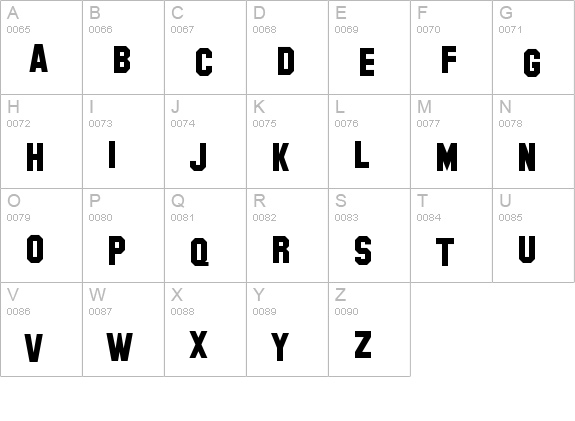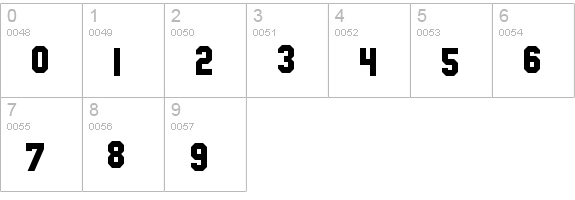
Introducing Hollywood Hills font, a sleek and stylish typeface that embodies the glamorous and iconic atmosphere of the famous Hollywood Hills. This font exudes elegance and sophistication, making it perfect for adding a touch of luxury to your design projects. With its clean lines and modern aesthetic, Hollywood Hills font is sure to make a statement and elevate your designs to the next level. Whether you're working on branding, logo design, or any other creative project, this font will help you stand out from the crowd. Best of all, Hollywood Hills font is available for free download at FontsMarket.com. This means you can easily access this stunning typeface and start using it in your projects right away. Don't miss out on the opportunity to add some Hollywood glamour to your designs with Hollywood Hills font. Download it now and let your creativity shine!